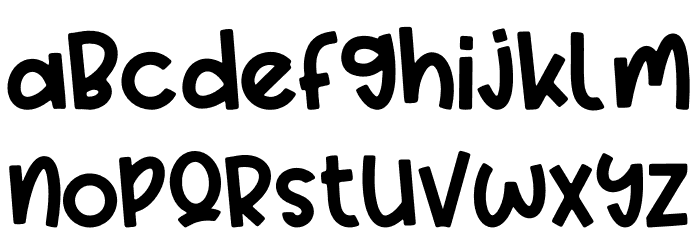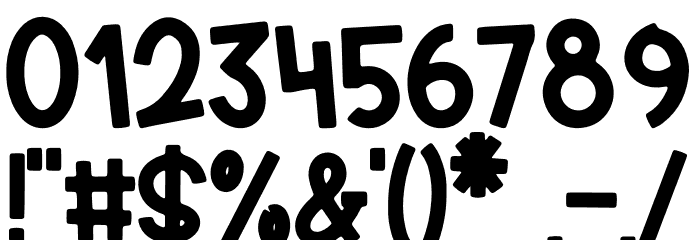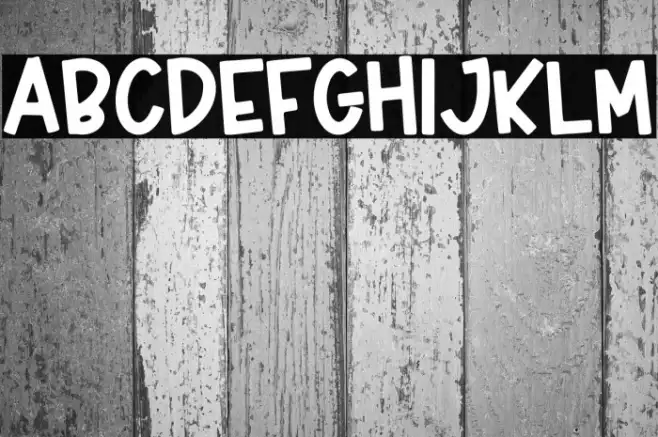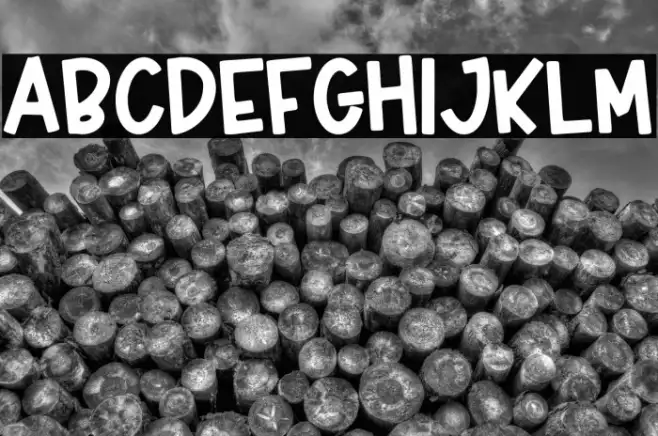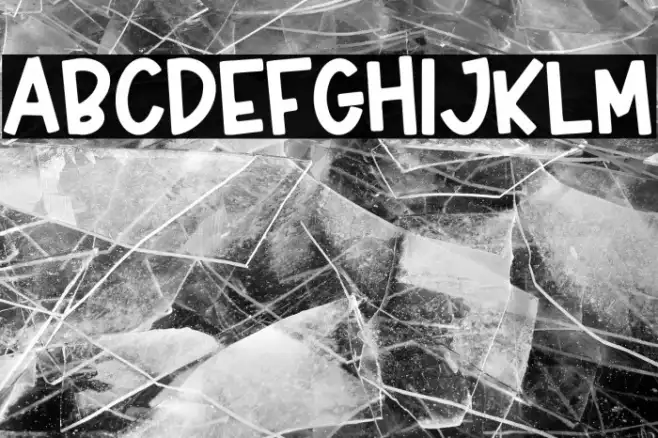
Delrosa Holiday Font
This playful and whimsical font features bold, rounded characters with a hand-drawn aesthetic. The letters are slightly irregular, giving them a charming, informal feel. The uppercase and lowercase letters maintain a consistent style, with some characters such as 'Q' and 'R' having unique, quirky designs. The numerals are bold and easy to read, matching the playful style of the alphabet. Special characters are included, maintaining the same bold and rounded style. This font is perfect for projects that require a fun and friendly touch.
A playful, hand-drawn font with bold, rounded characters.
- Font: Delrosa Holiday
- Proposed Projects: Ideal for children's books, greeting cards, playful branding, and casual invitations.
- Overall Style: Playful